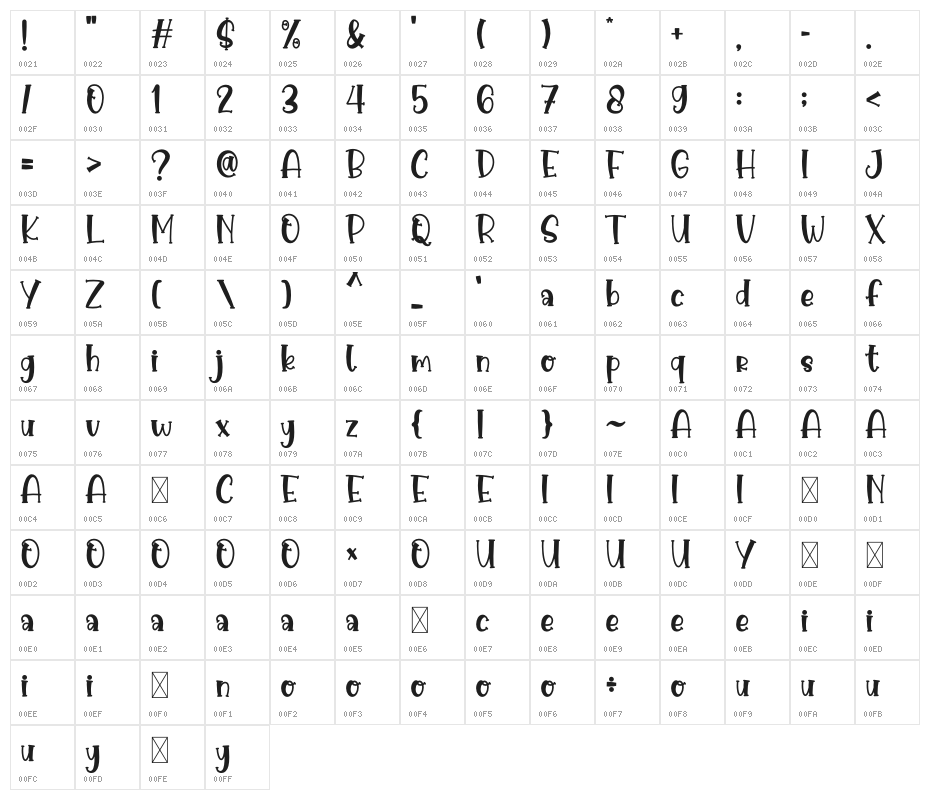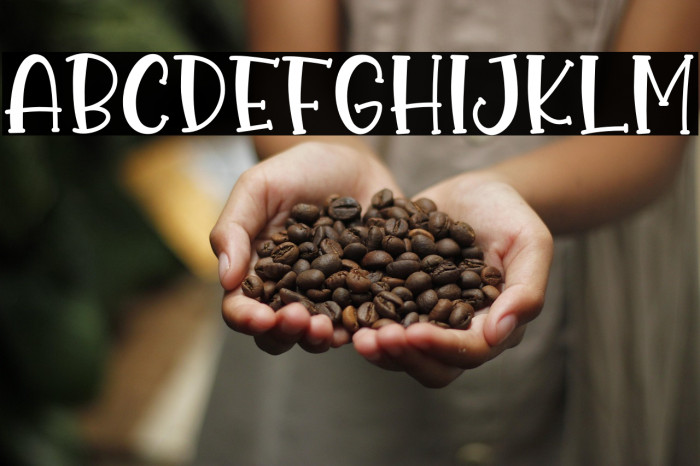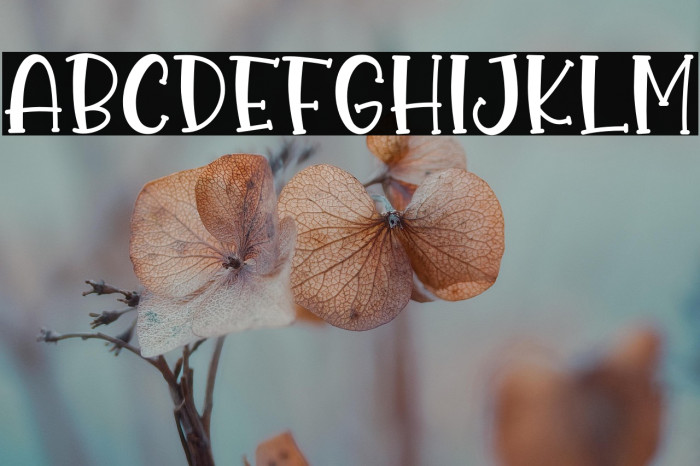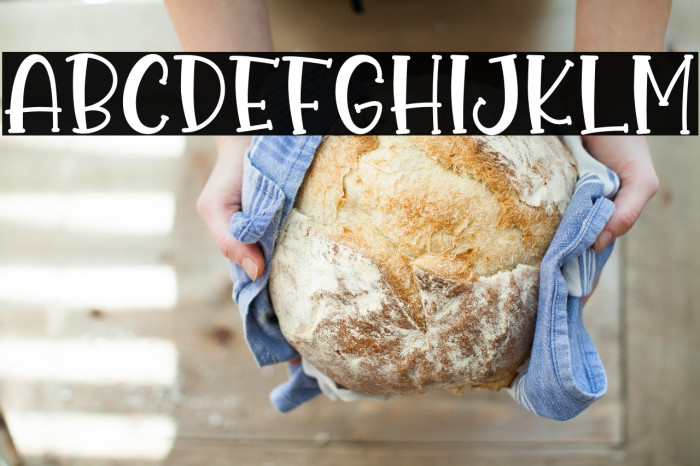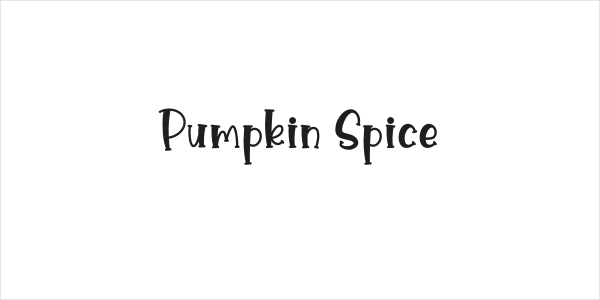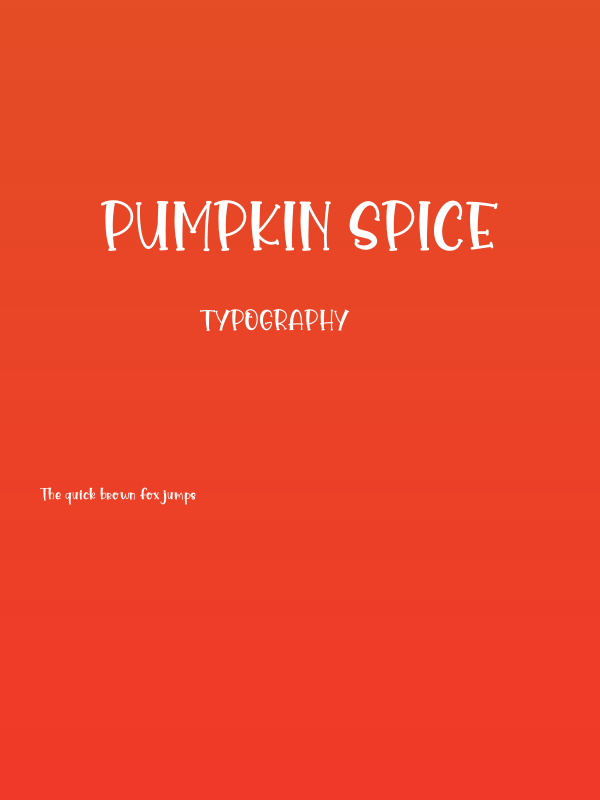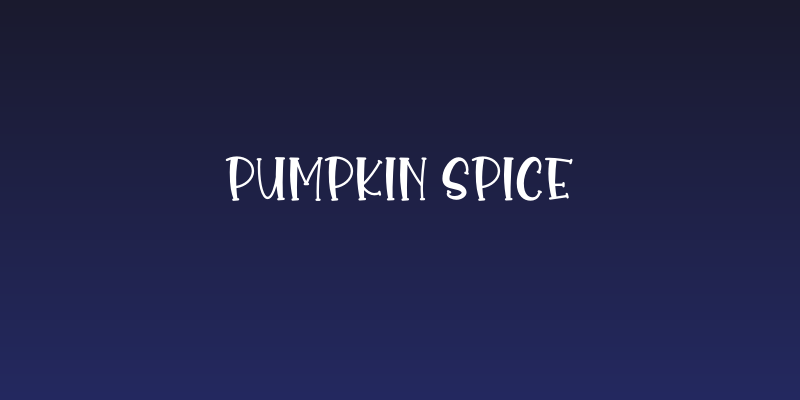
Pumpkin Spice Font
Pumpkin Spice Description
This font exudes a playful and whimsical charm, characterized by its bold and rounded letterforms. Each character has a unique, hand-drawn quality, with varying stroke widths that add a sense of movement and energy. The uppercase letters are tall and slightly narrow, while the lowercase letters maintain a consistent height, creating a harmonious balance. The numerals and special characters follow the same playful style, making them perfect for creative and informal designs. The font's overall appearance is both friendly and approachable, ideal for projects that require a touch of fun and personality.
| Overall Style | Whimsical |
| Proposed Projects | Ideal for children's books, greeting cards, playful branding, and creative posters. |